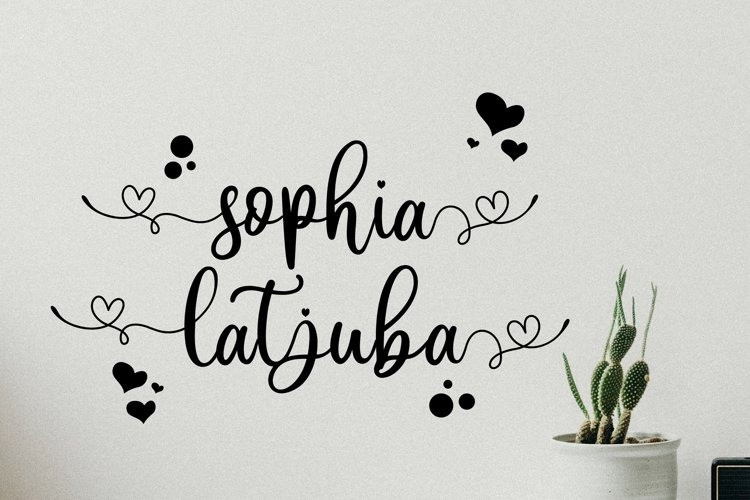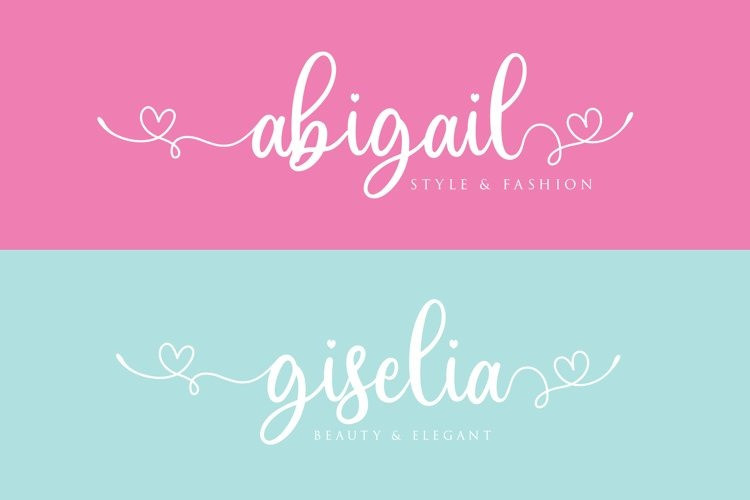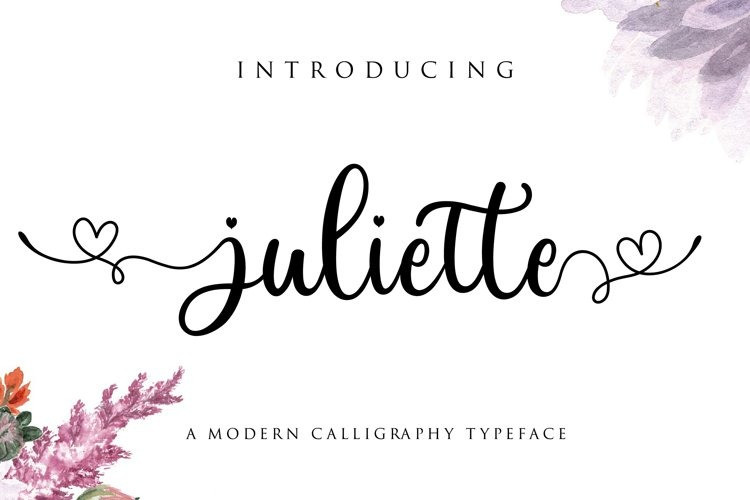
Juliette Calligraphy Font
Introducing juliette script, a stylish Font Style. This beautiful script font offers your personal touch to your latest art project with elegant, classy and modern look.
The juliette Script offers gorgeous typographic perfect for many different projects such as logos & branding, invitations, stationery, wedding designs, social media posts, advertisements, product packaging, product designs, labels, photography, watermarks, special events or anything that needs handwriting taste.